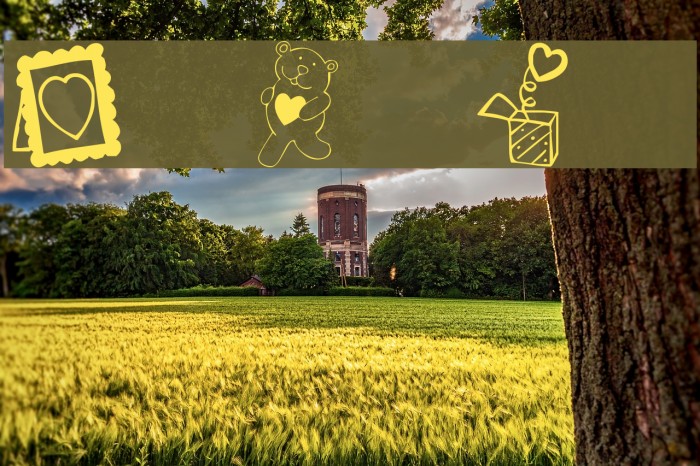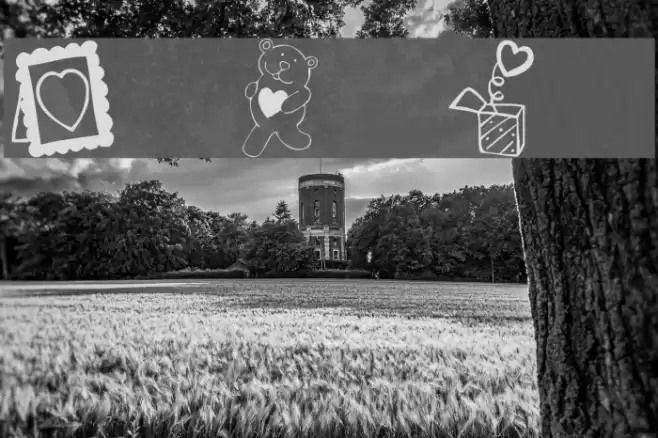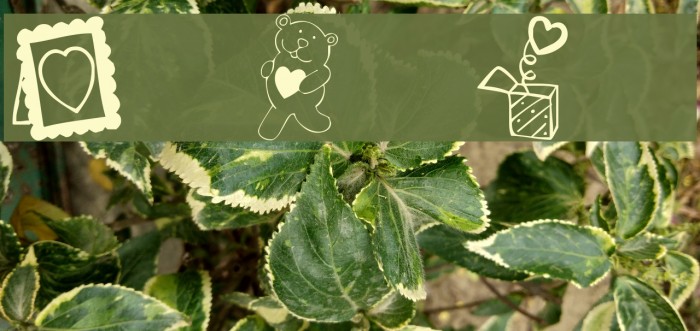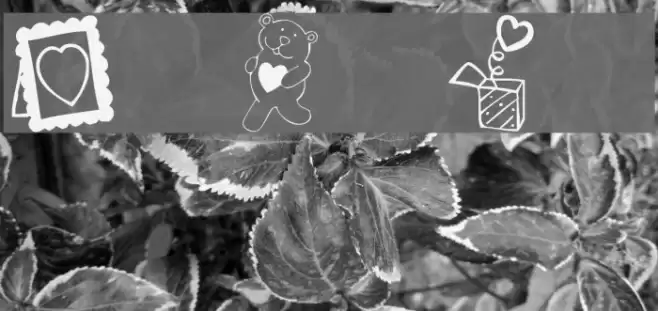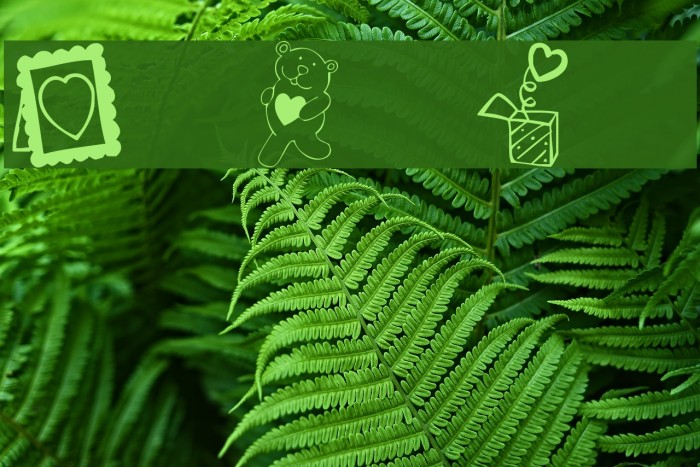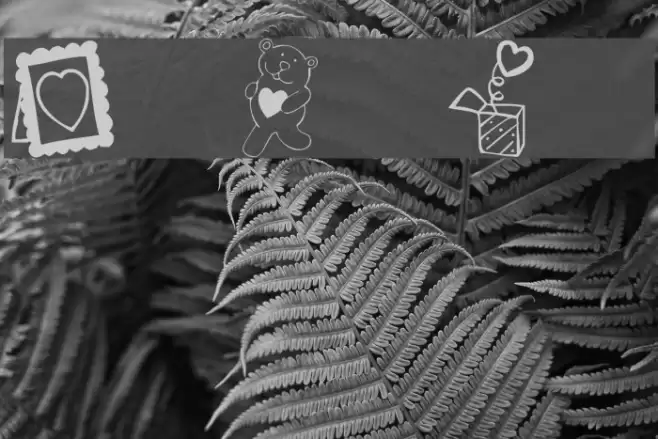
KR Cuori Divertenti 4 Font
KR Cuori Divertenti 4 Description
This is a decorative font featuring playful and whimsical heart-themed illustrations. Each character is represented by a unique heart-related graphic, incorporating elements like teddy bears, love letters, and heart-shaped sunglasses. The style is light-hearted and fun, making it ideal for projects that require a touch of romance or playfulness. The characters are not traditional alphanumeric symbols but rather a collection of charming icons that convey love and affection.
| Use Case | Logos, Decorative text, Themed graphics |
| Proposed Projects | Ideal for Valentine's Day cards, wedding invitations, romantic event posters, and playful graphic design projects. |